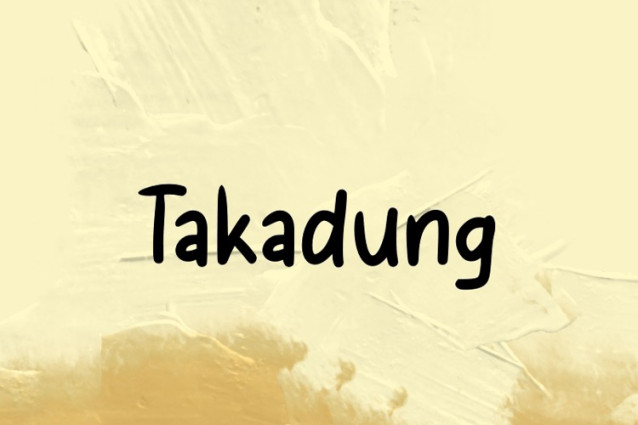
Takadung Font
Takadung Font is a simple and friendly handwritten font. Its natural and unique style makes it incredibly fitting to a large pool of designs. The only limit is your imagination!